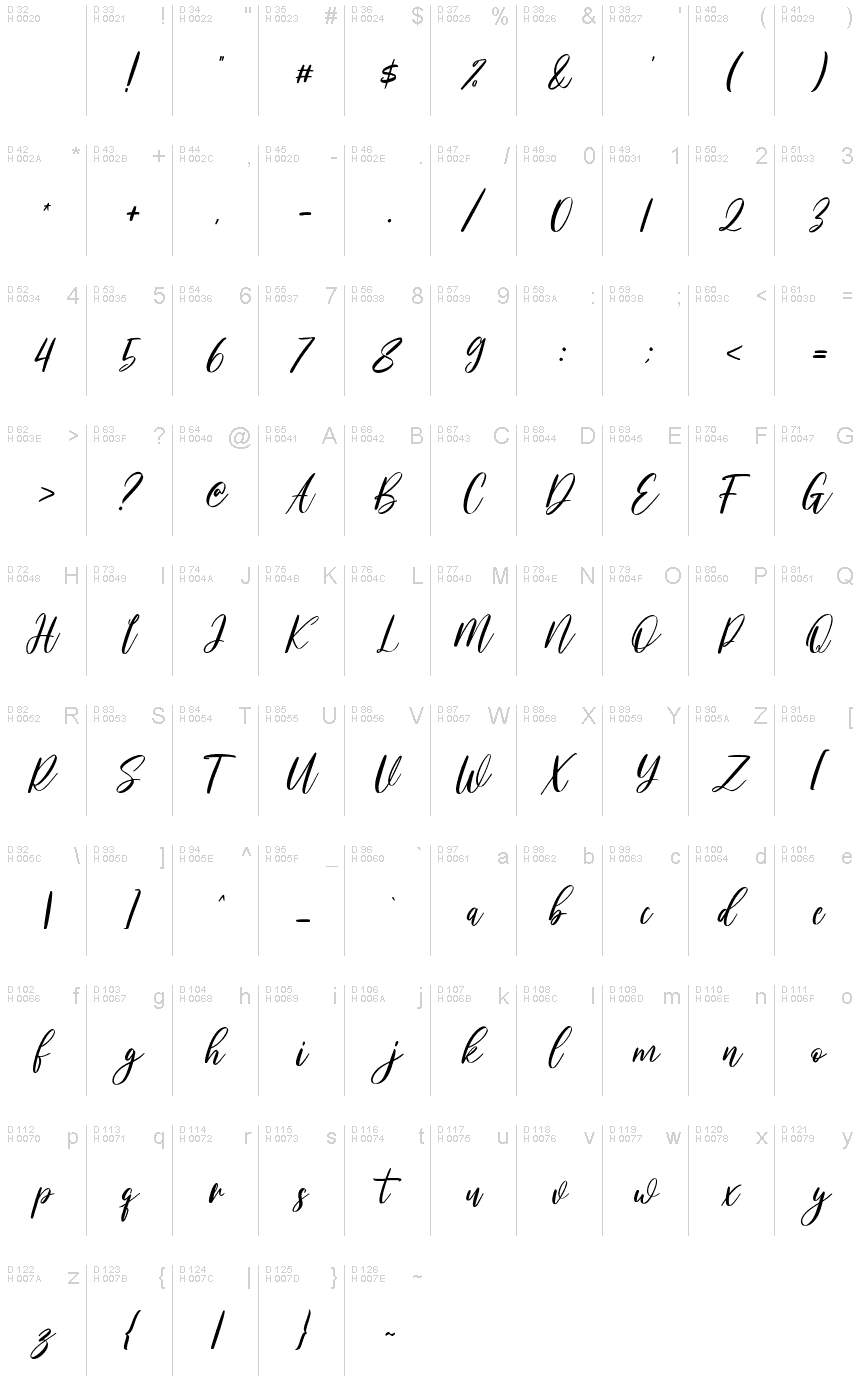
Skylounge
Skylounge, a light handwritten signature font designed by MaulanaCreative, adds a personal touch to any project. Use it for invitations, personalized stationery, greeting cards and more! Its versatility makes it perfect for crafting unique logos and branding identities.